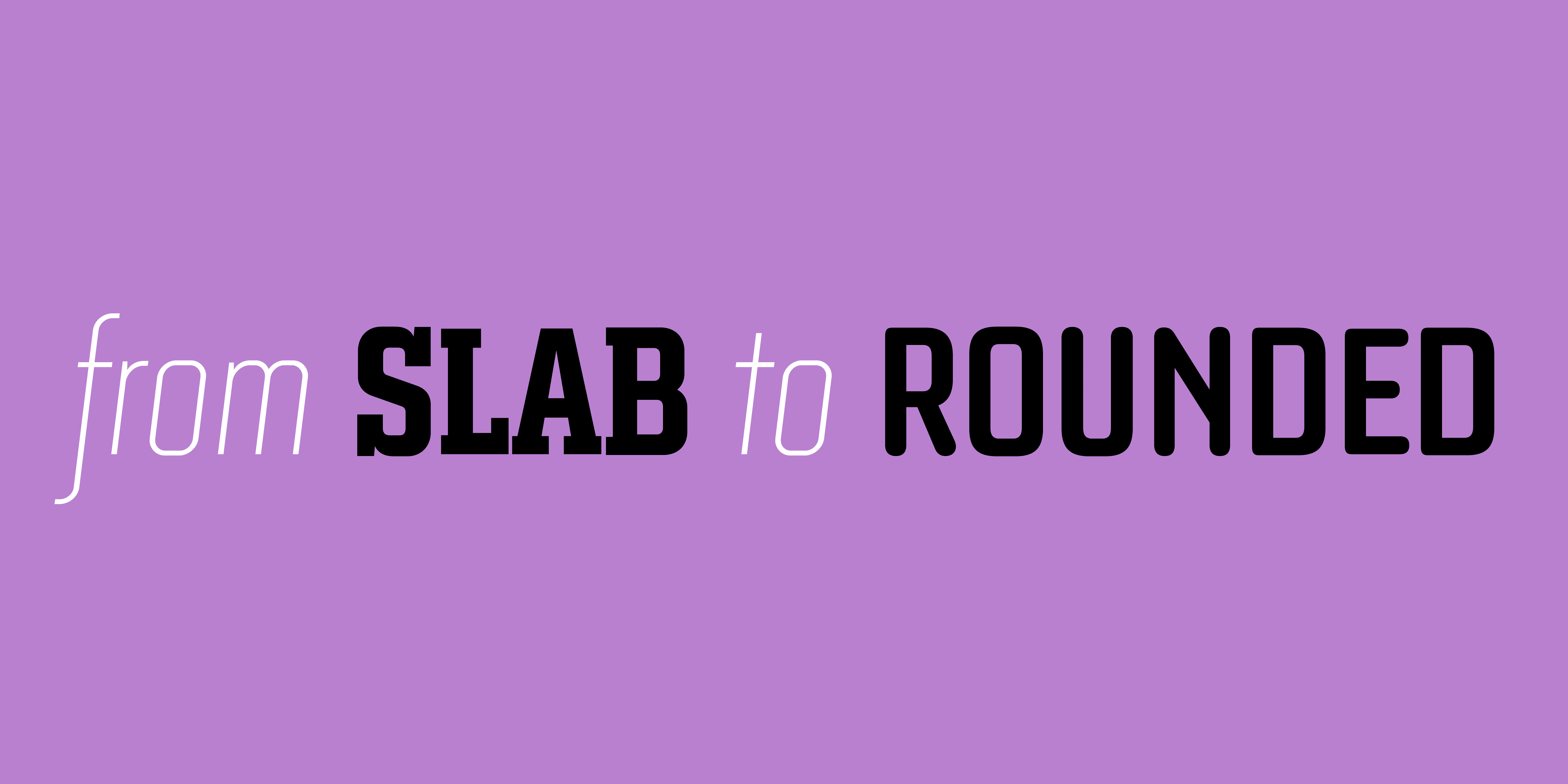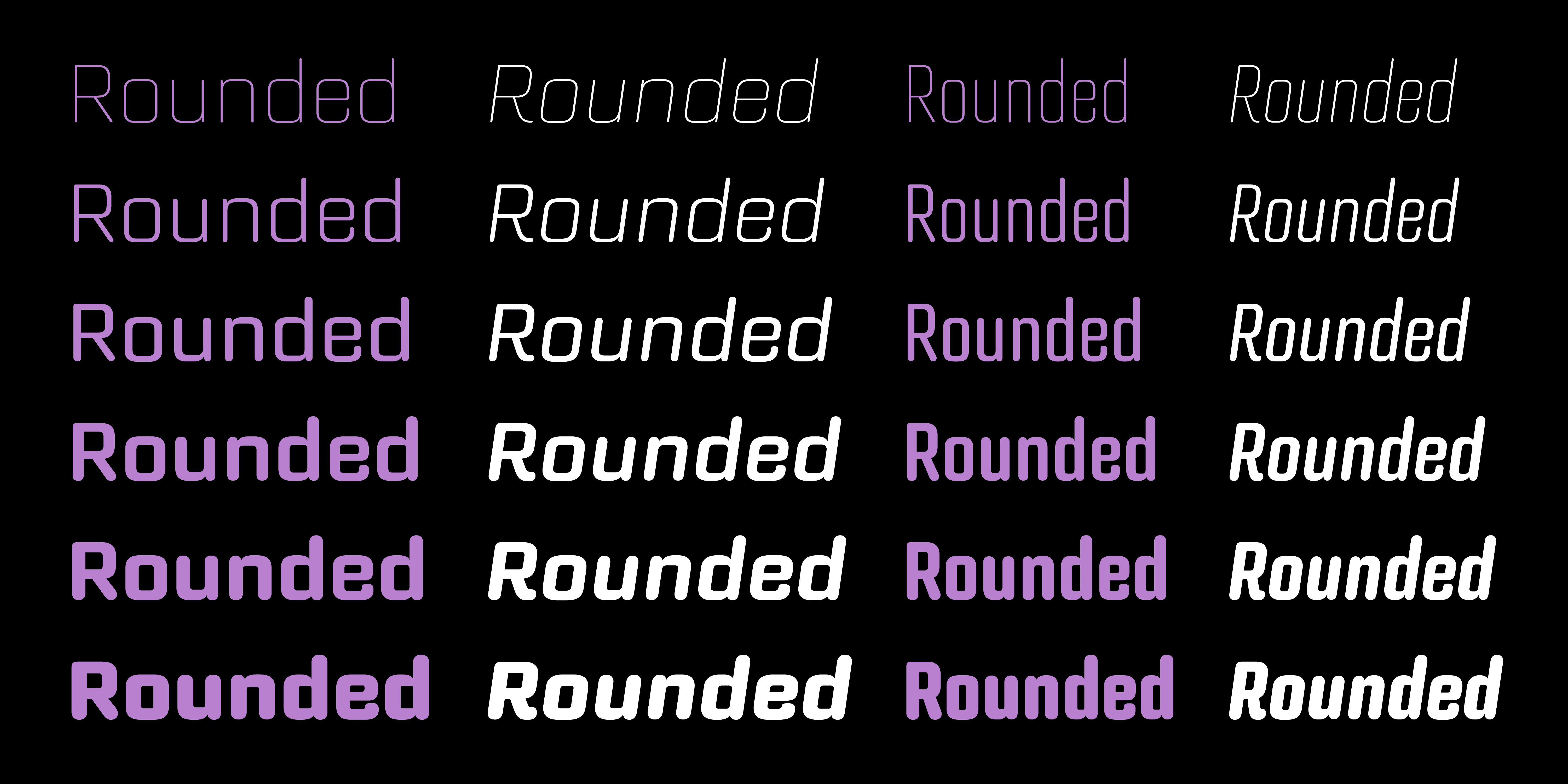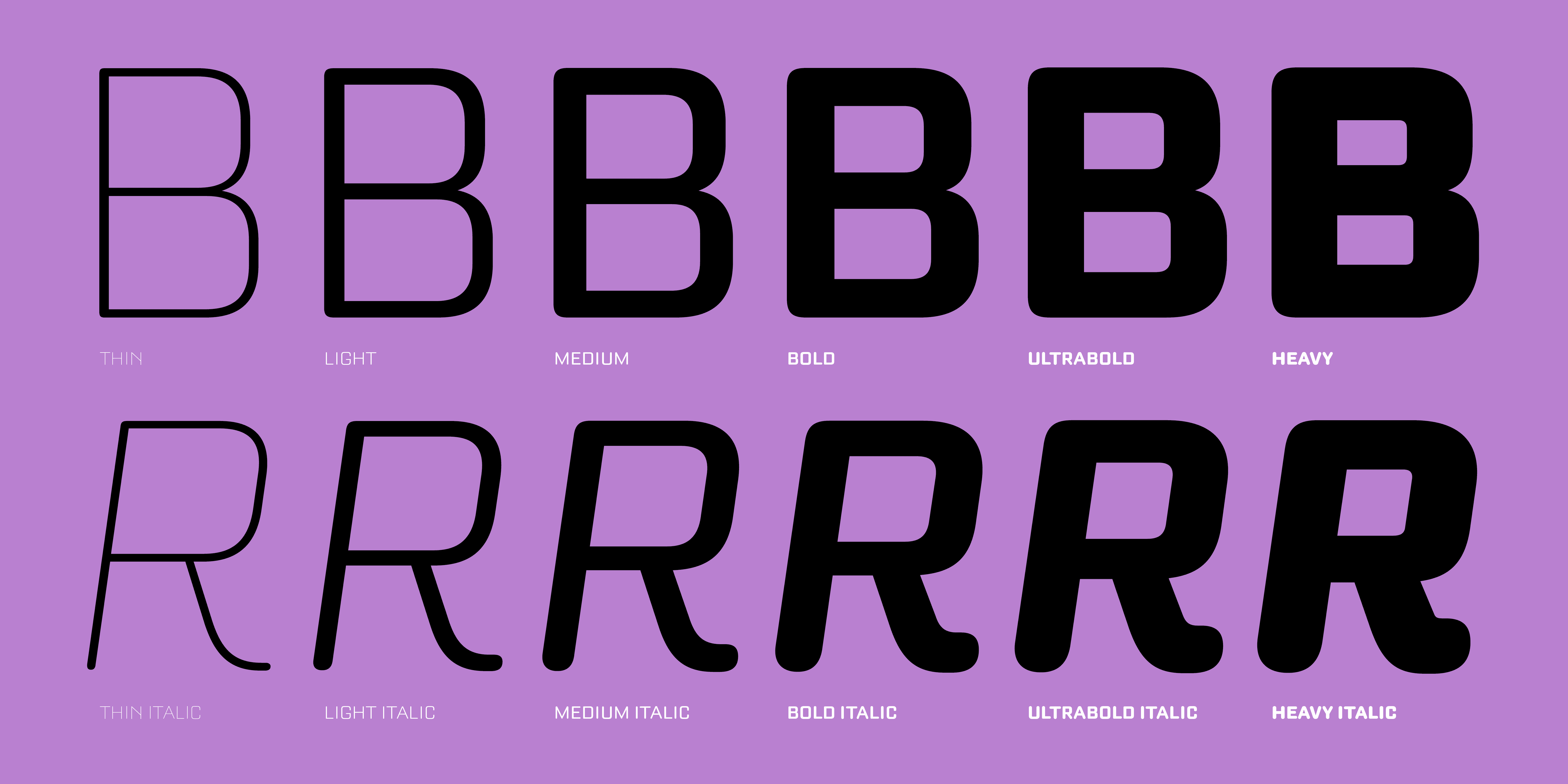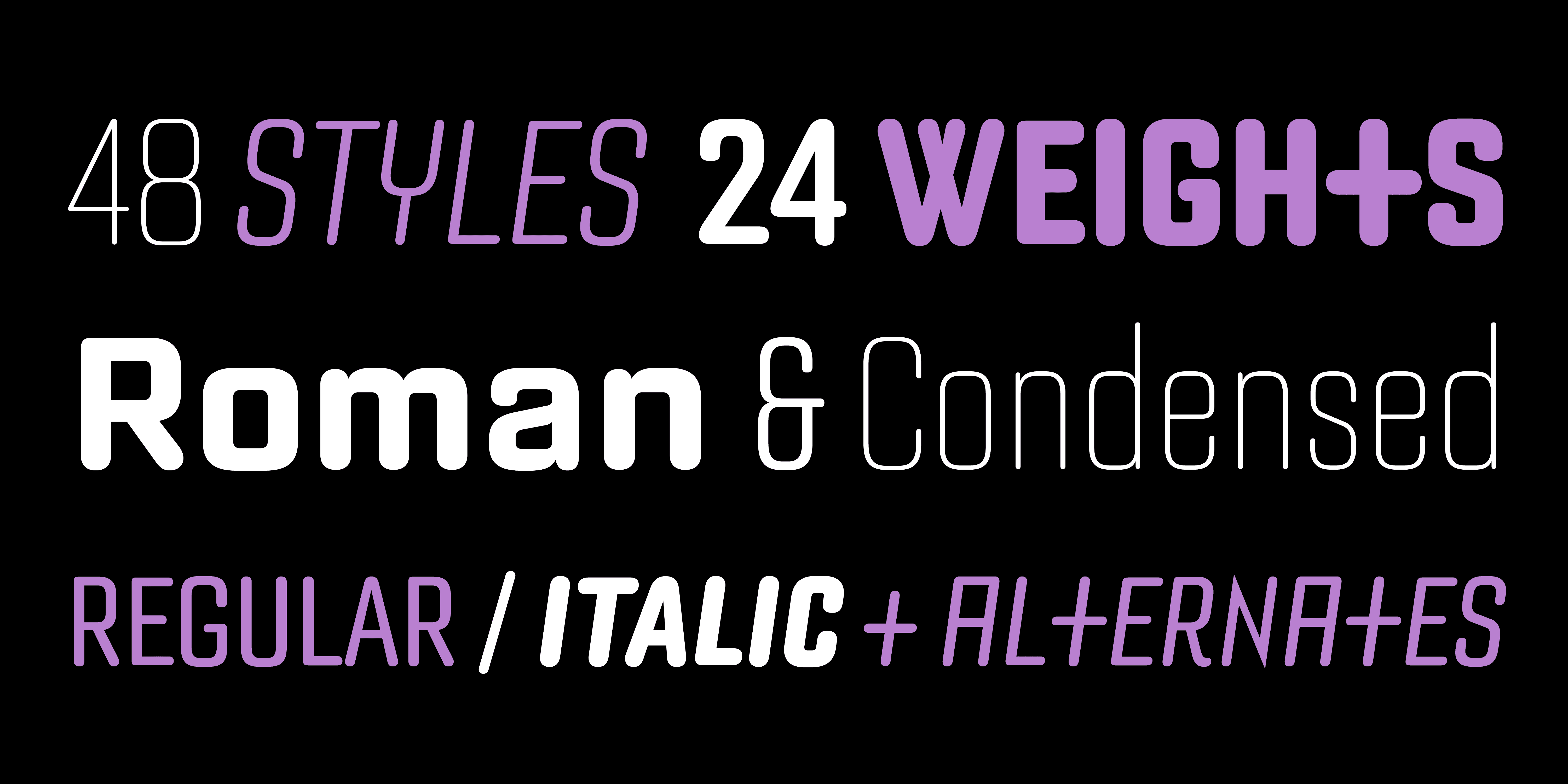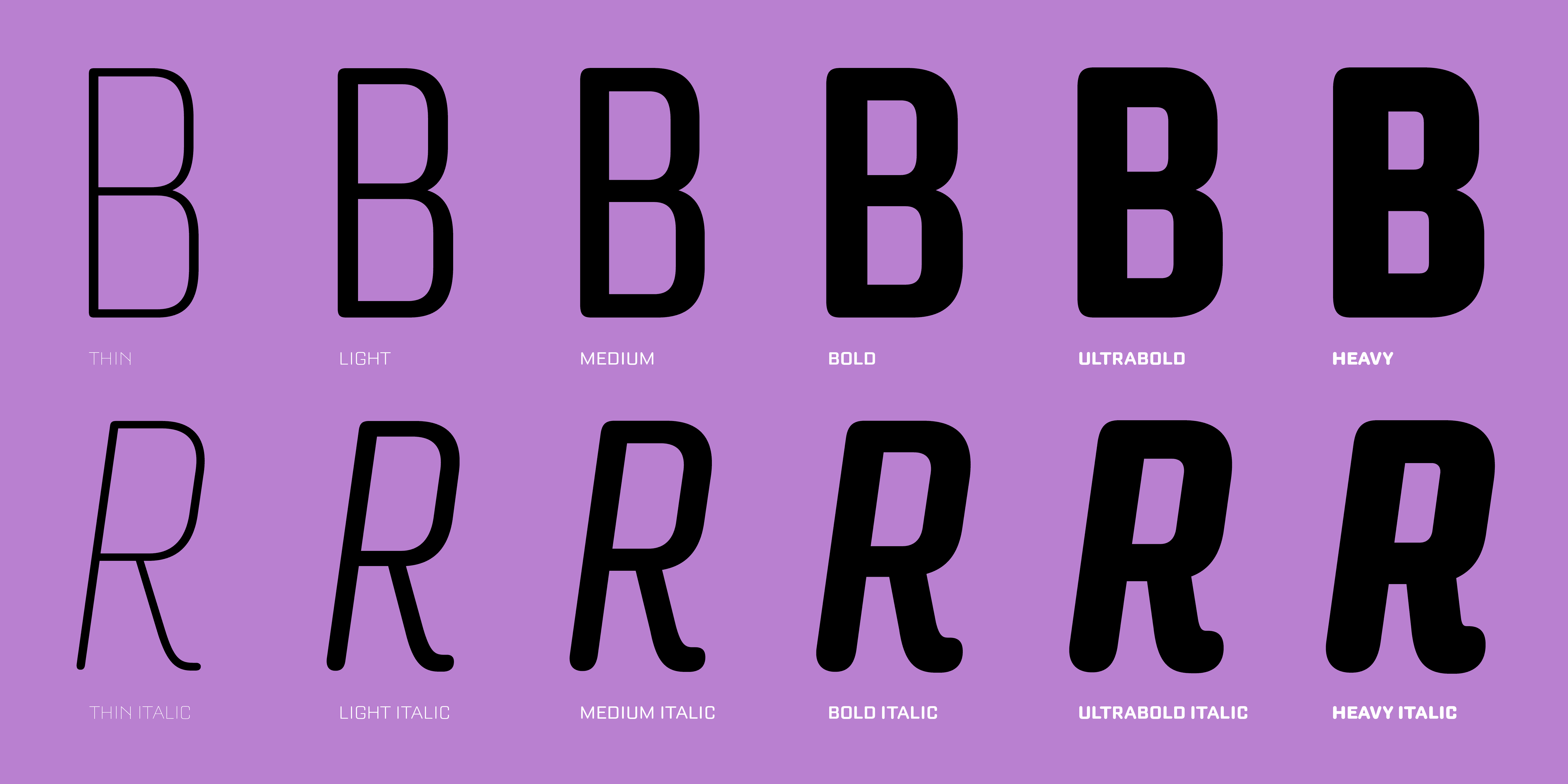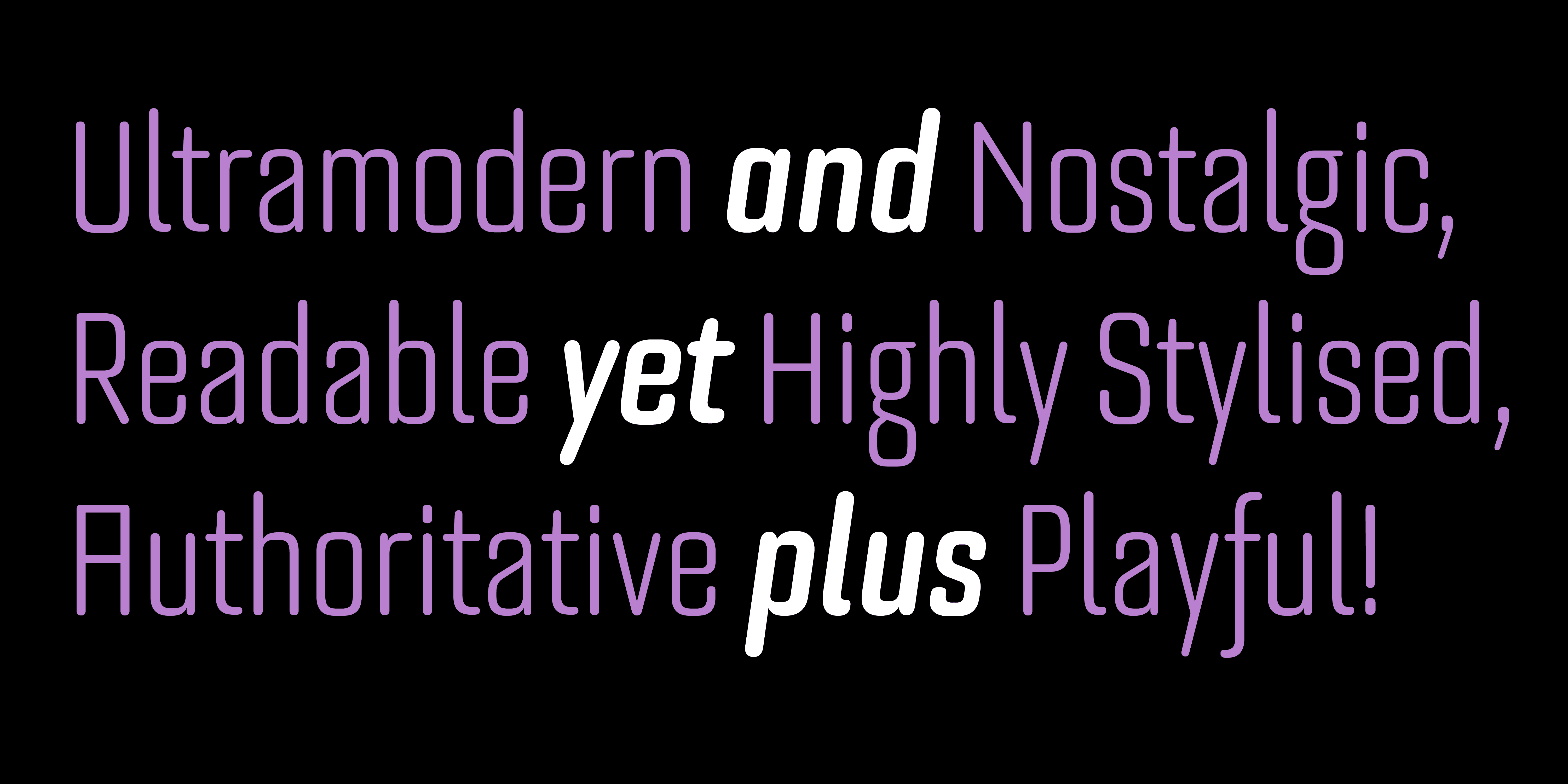
Bourgeois Rounded Family (24 fonts)
From Barnbrook Fonts
Bourgeois Rounded is built upon the framework of Bourgeois, our popular geometric type family. As with the sans-serif Bourgeois Rounded letterforms are contemporary in look and feel. Echoing late 20th century modernism in style, Rounded's overall look is clean and sleek, more ephemeral and dynamic than Bourgeois's pared-down asceticism.
The Rounded’s place in the history of font is a complex one. Being lauded for their legible characteristics and also at the same time their fashionable qualities, looking ultramodern and nostalgic, readable and highly stylised, authoritative and playful. Bourgeois Rounded and Rounded Condensed when combined, offer 24 styles suited for text of all kinds and sizes. Both are particularly good for short pieces of text requiring a sense of urgency or playfulness.